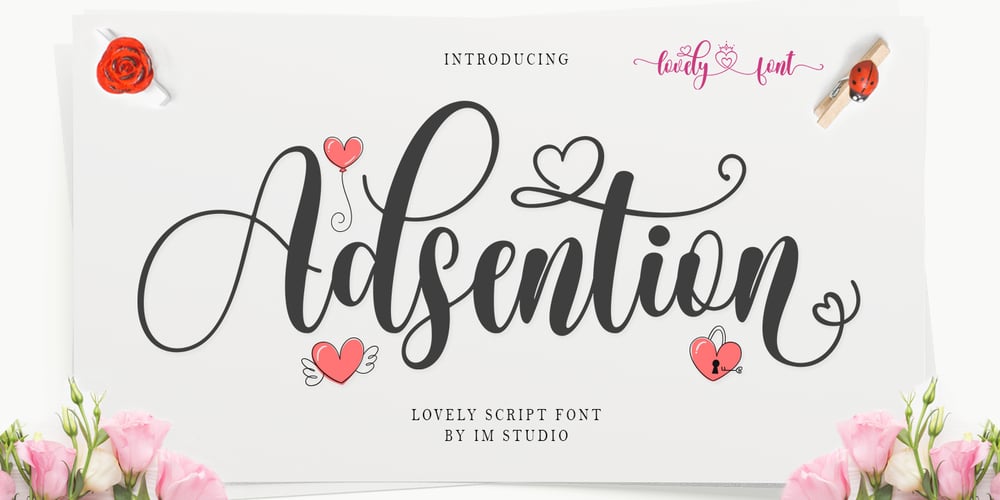
Adsention Font Family was designed by Ikhsan Maulana and published by IM Studio. Adsention contains 1 styles and family package options. Thank you for checking out Adsention! A very playful yet elegant script font with lots of energy, letting you create beautiful handcrafted typography in seconds. With its extra bouncy curves & twists, Madina Script is guaranteed to make your text stand out – perfect for logos, printed quotes, invitations, cards, product packaging, headers and anything else you can imagine.What’s really amazing is that Adsention comes with a complete set of lowercase alternatives, which let you create more authentic custom tone text, allowing you to add some really unique and elegant finishing touches to your script text.Thank you very much.